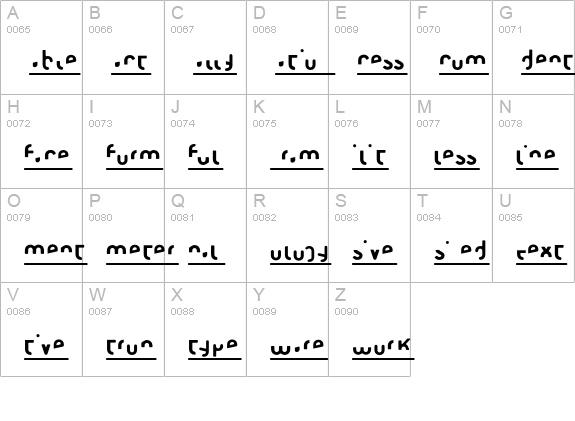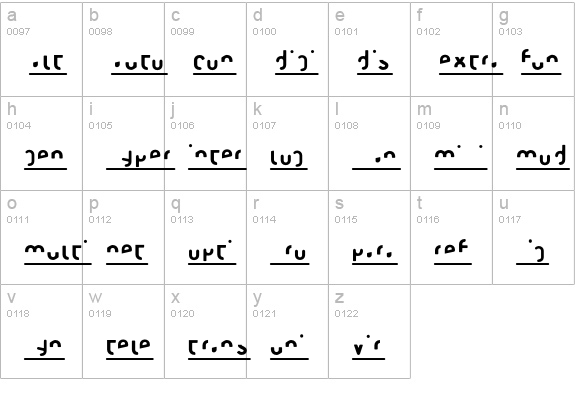
Condition-Mutated Font Details
Condition-Mutated font is a captivating and unique typeface that is sure to make a bold statement in any design project. With its distorted and twisted letterforms, this font exudes a sense of mystery and intrigue. The irregular shapes and jagged edges give Condition-Mutated a distinctively edgy and unconventional aesthetic that is perfect for adding a touch of avant-garde flair to your designs. What sets Condition-Mutated font apart is its innovative approach to typography, where traditional letterforms are reimagined and transformed into something completely new and unexpected. This font is a perfect choice for projects that require a touch of originality and creativity. Add a touch of rebellious spirit to your designs with Condition-Mutated font, and watch as your creations come to life with a whole new level of energy and dynamism. Whether you're working on a poster, website, or branding project, this font is sure to leave a lasting impression on your audience. Best of all, Condition-Mutated font is freely available to download at FontsMarket.com. So why wait? Give your designs a fresh and exciting look with this one-of-a-kind typeface today!